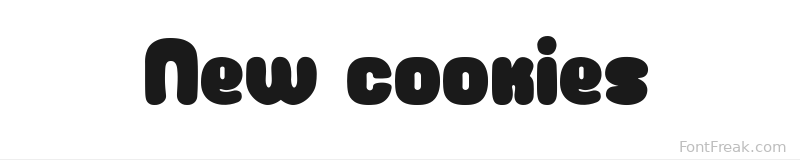
Newcookies
New cookies
The Newcookies font by Kong Font is a unique display typeface that exudes a playful and modern charm. This font, released in 2019, showcases a rounded, bold design that is both eye-catching and approachable. Its thick strokes provide an excellent visibility, making it suitable for a variety of applications. The overall letterform features a consistent weight with minimal contrast, ensuring a cohesive and vibrant appearance. The spacing is well-balanced, allowing for easy readability while maintaining a fun aesthetic. Newcookies is adorned with whimsical curves and subtle decorative elements that evoke a sense of joy and creativity.
This versatile font is perfect for various use cases, including branding for cafes and bakeries, where it can be used on menus and signage to create an inviting atmosphere. It also works well for children's products, making it an excellent choice for packaging or promotional materials aimed at younger audiences. Additionally, Newcookies can enhance the visual appeal of social media graphics, event flyers, and even website headers, providing a contemporary touch that captures attention. Graphic designers, small business owners, and content creators will find this font particularly appealing, as it adds a distinctive flair to their projects.
What sets Newcookies apart is its ability to balance playfulness with professionalism, making it suitable for both casual and formal contexts. Its freeware license allows users to enjoy this font without financial constraints, making it accessible for personal and commercial projects alike. If you’re looking to elevate your design with a font that embodies creativity and warmth, consider the Newcookies font free download for your next project. Its unique character and versatility are sure to make a lasting impression.